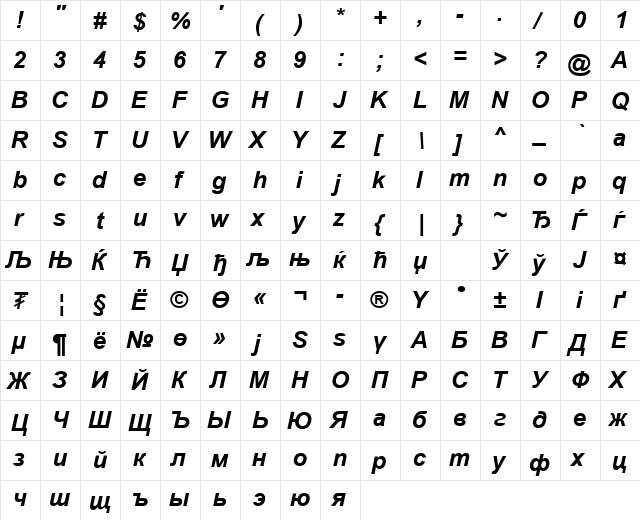
Arial Mon Bold Italic Font Preview
Arial Mon Bold Italic
Design Context for Arial Mon Typeface
Arial Mon offers clean, dependable letterforms without strong stylistic allegiance, making it a practical choice for designers who need flexibility. The dynamic lean of this cut emphasises speed and emphasis in any layout. Its bold stroke weight gives it real presence on the page.
Pro Tip: Try Arial Mon for annotation and caption copy alongside an upright companion — the contrast in angle creates a dynamic but ordered typographic system.